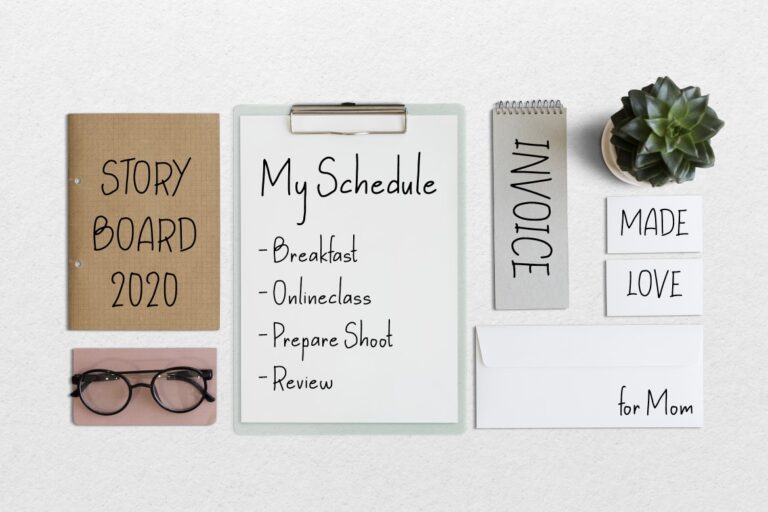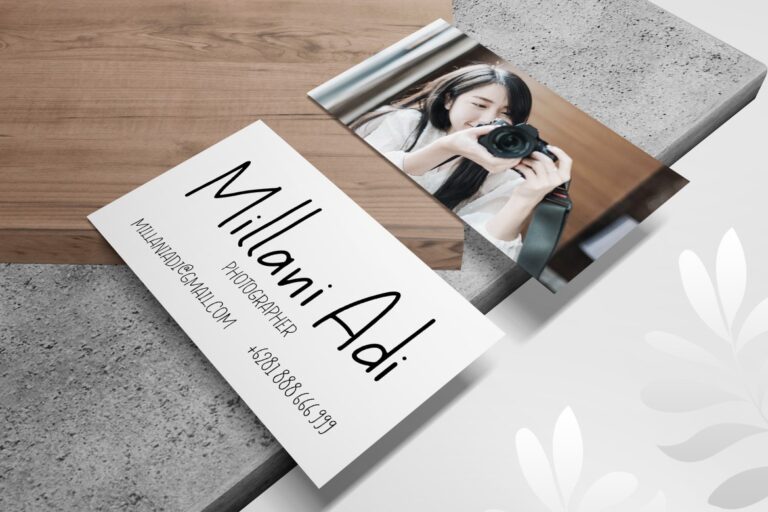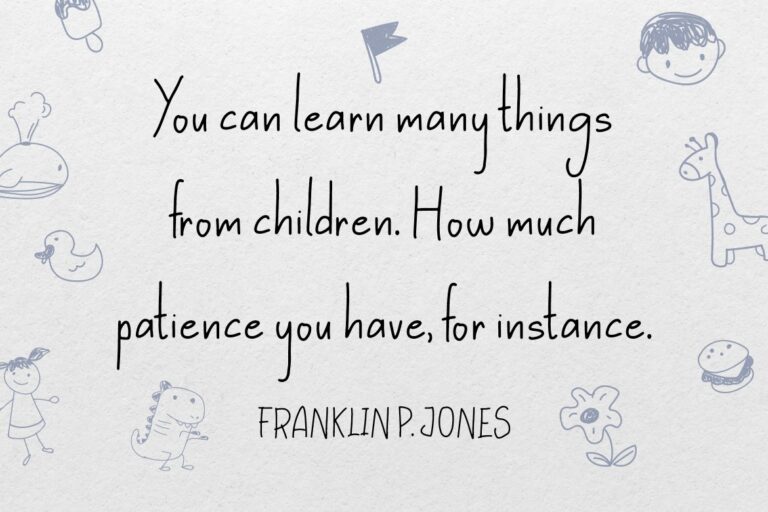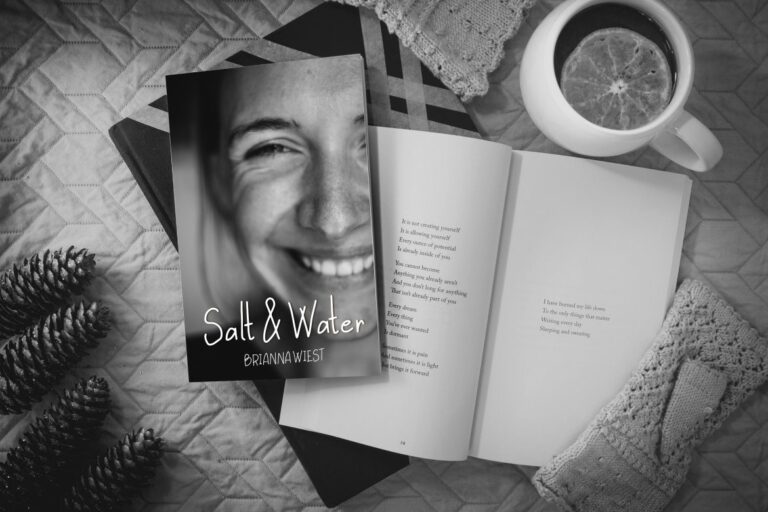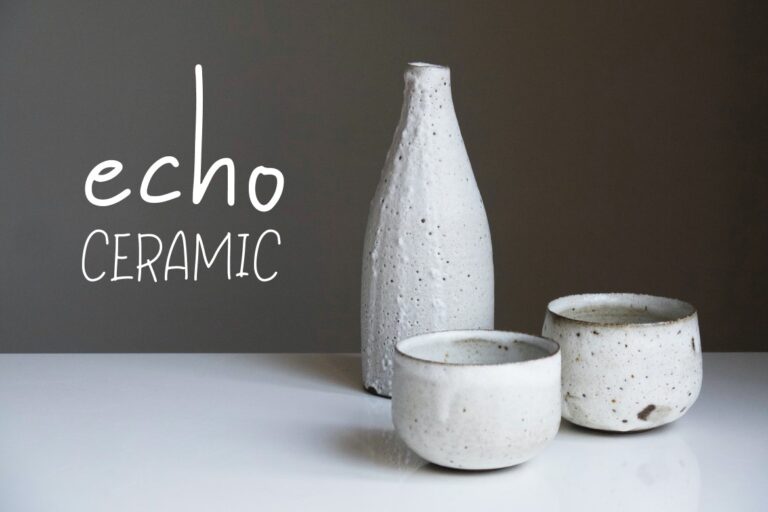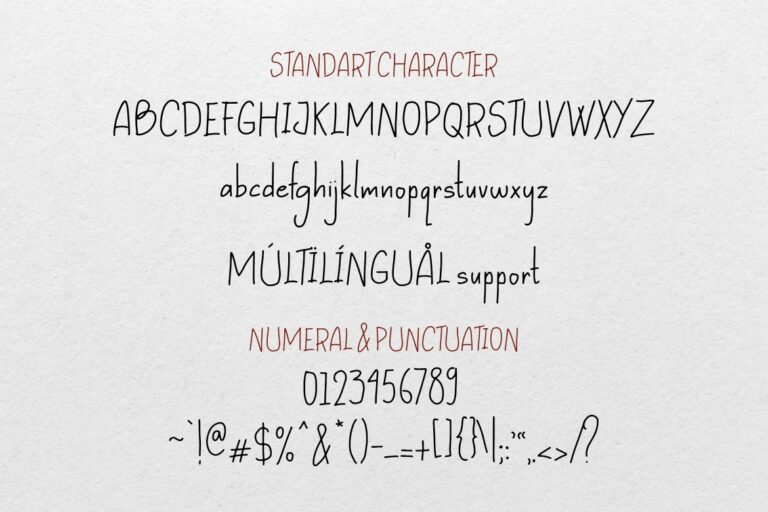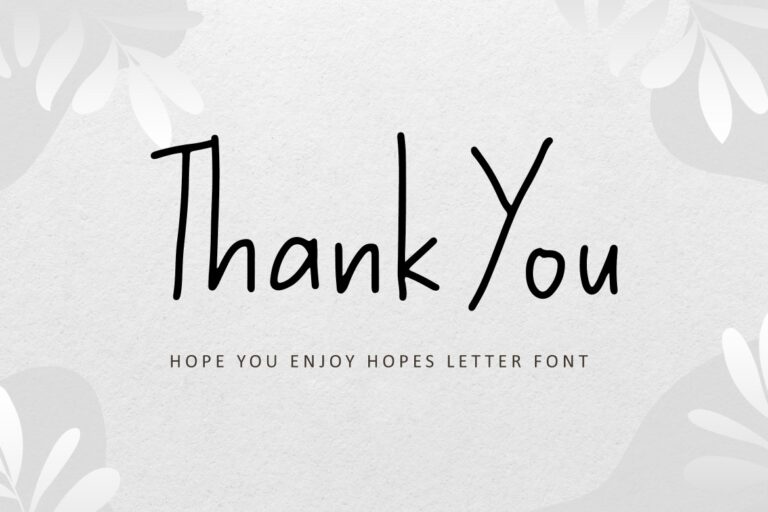
Hopes Letter
Hopes letter is natural handwritten font. For you, yes for everyone that looking for natural font , just use this font, perfect for book cover, for food menu, for educational project, and any logo design